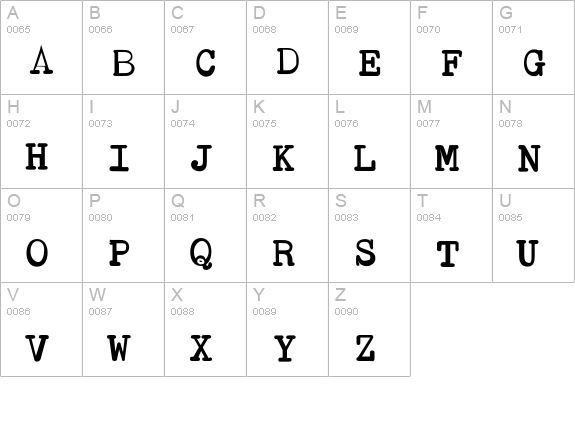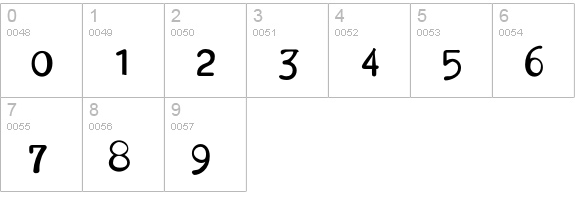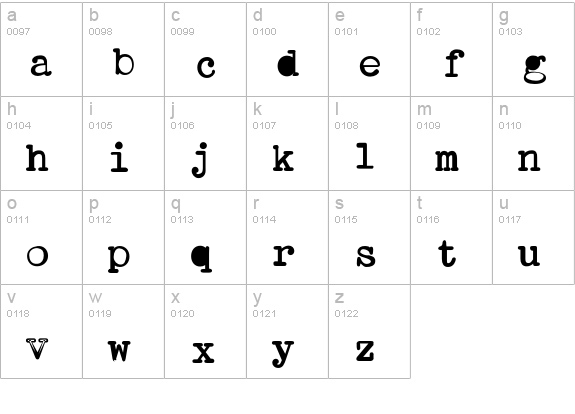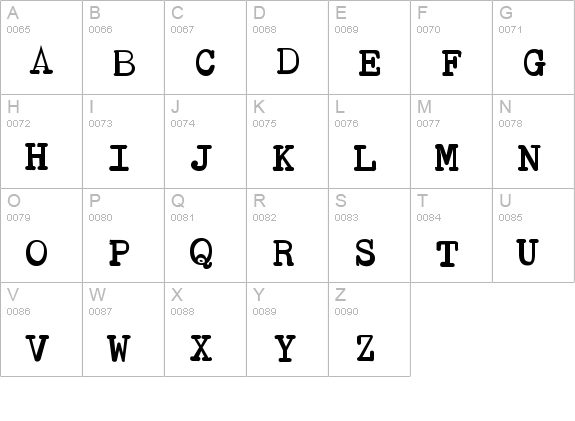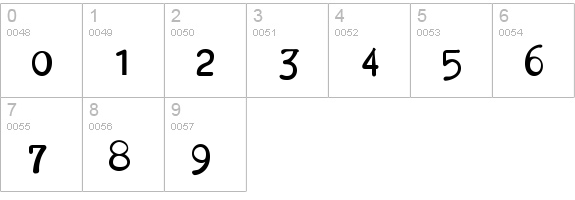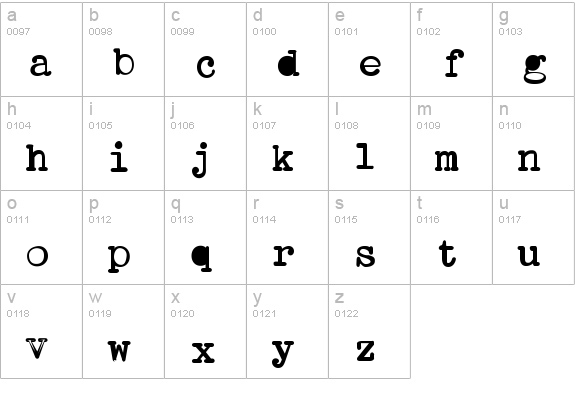
STAPortableBold Font Details
STAPortableBold is a stunningly bold and versatile font that is sure to make a lasting impression. Its strong and commanding presence on the page demands attention and conveys a sense of confidence and authority. The thick, solid strokes of each letter create a bold and impactful visual display that is perfect for headlines, titles, and any other design element that requires a strong and eye-catching text. This font is not only visually striking, but it also offers a level of versatility that makes it suitable for a wide range of design projects. Whether you are creating a poster, a logo, a website, or any other design piece, STAPortableBold will deliver a powerful and impactful message. One of the best things about STAPortableBold is that it is completely free to download. Yes, you read that right - this incredible font is available for free at FontsMarket.com. This means that you can enhance your design projects with this high-quality font without having to spend a dime. Don't miss out on this amazing opportunity to add a touch of boldness and professionalism to your designs. Download STAPortableBold for free at FontsMarket.com and let your creativity soar.